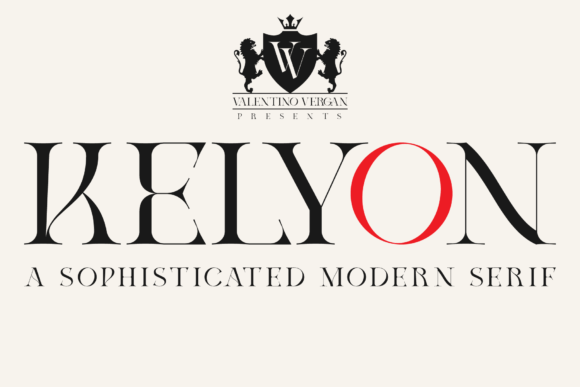
Indulge in the allure of Kelyon, a captivating serif font that echoes the splendor of a bygone era. Inspired by the grace of the late Middle Ages and the budding elegance of the early Renaissance, Kelyon possesses an exquisite charm that transports your creations beyond the ordinary.
Its distinctive thin hairline and elongated serifs evoke a sense of timeless sophistication, reminiscent of the illuminated manuscripts that adorned the courts of old. With over 60 meticulously crafted stylistic ligatures, Kelyon dances across your designs, adding a touch of intrigue and visual delight.
Whether you're crafting captivating headlines or weaving enchanting tales in shorter texts, Kelyon empowers you to convey your message with a touch of old-world elegance. Its versatility knows no bounds, making it the perfect choice for Instagram posts, branding initiatives, and any endeavor that demands a touch of refinement.
Immerse yourself in the beauty of Kelyon, and let its timeless aesthetic elevate your creations to new heights of enchantment.